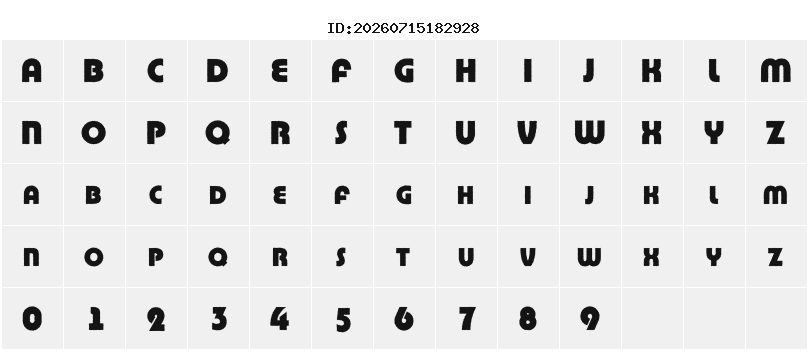
a_BighausTitulRg Preview
• Font Name: a_BighausTitulRg
• Font Style: ExtraBold
• Font ID: a_BighausTitulRg ExtraBold
• Full Font Name: a_BighausTitulRg ExtraBold
• PostScript Name: a_BighausTitulRg-ExtraBold
About a_BighausTitulRg.ttf
a_BighausTitulRg.ttf is a modern, elegant sans-serif font designed for ultimate readability and visual harmony. Perfect for branding, headlines, web design, and print materials.